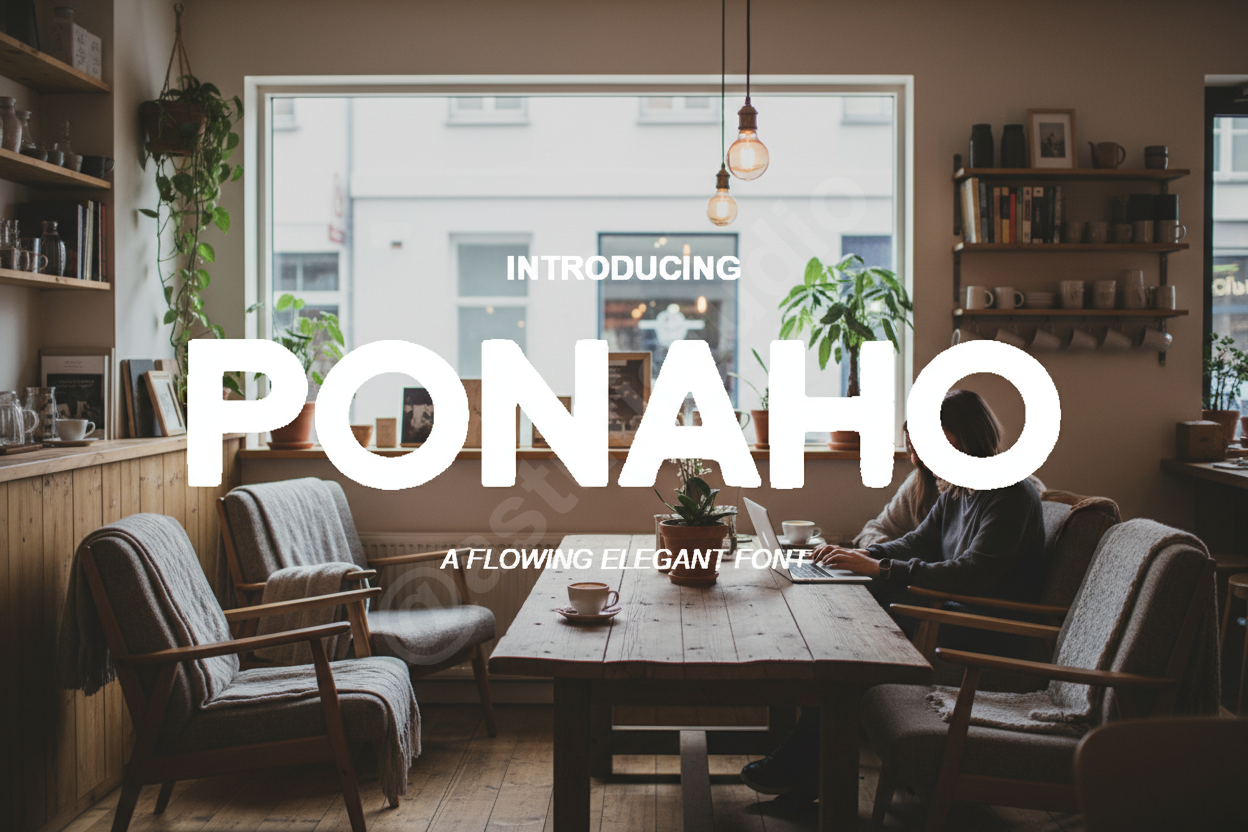
Ponaho - Elegant Serif Typeface
PONAHO ELEGANT SERIF TYPEFACE
Introducing Ponaho, a premium serif typeface meticulously crafted for high-end design projects. This font embodies sophistication and timeless grace, making it an essential tool for designers seeking a luxurious aesthetic. Whether you are crafting a brand identity for a fashion house or designing a minimalist editorial layout, Ponaho delivers unparalleled elegance and professional polish.
- Full set of uppercase and lowercase letters
- Numbers and comprehensive punctuation
- Unique stylistic ligatures for custom character
- Multilingual support for global accessibility
- Clean, high-contrast strokes for a premium feel
PERFECT FOR
- Luxury Branding and Logo Design
- Magazine and Editorial Layouts
- High-End Social Media Graphics
- Wedding Stationery and Invitations
- Premium Product Packaging